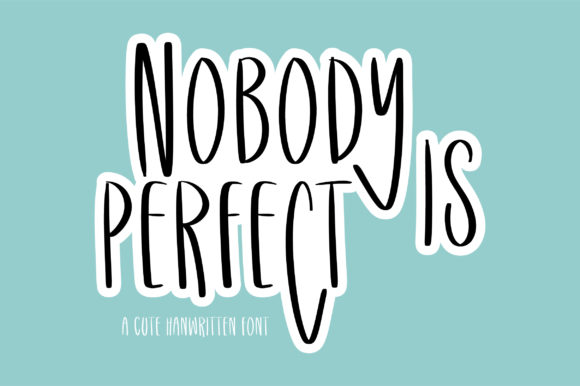
Introducing Nobody is Perfect – the spirited and amicable handwritten font that's sure to enchant you with its playful charm and comforting presence. Crafted with utmost care by the skilled artisans at BitongType, Nobody is Perfect embodies the essence of warmth and friendliness, making it the perfect choice for a wide array of creative endeavors.
With its expressive strokes, Nobody is Perfect dances across the page, bringing a touch of whimsy and cheerfulness to your projects. Its delicate curves and lively loops evoke a sense of nostalgia, inviting you to pen heartfelt letters, create eye-catching invitations, or add a personal touch to your branding designs.
More than just a font, Nobody is Perfect is a companion that accompanies you on your creative journey, lending its unique charm to every project. Its versatility knows no bounds, effortlessly elevating everything from wedding designs and logos to labels and signatures.
Designed to spark joy and inspire creativity, Nobody is Perfect is the ultimate font for those seeking to infuse their projects with a dash of playfulness and a heap of warmth. Its carefully crafted doodles, included as a bonus, add an extra layer of charm, making your creations truly one-of-a-kind.
Embrace the delightful imperfections of Nobody is Perfect and let your imagination soar. Its friendly demeanor and boundless versatility will turn your creative visions into captivating realities.
- Whimsical and friendly handwritten font
- Designed by the talented BitongType
- Perfect for letters, invitations, branding, and more
- Includes a delightful collection of bonus doodles
Unlock the creative potential within you with Nobody is Perfect. Its enchanting aura and boundless versatility will transform your projects into captivating masterpieces, leaving an indelible mark on all who behold them.